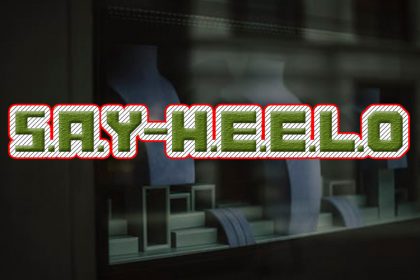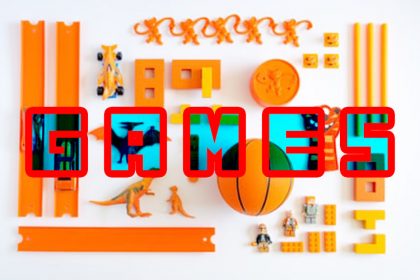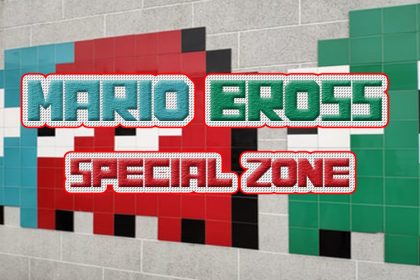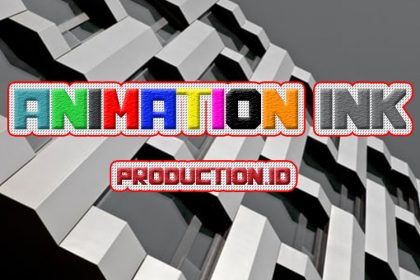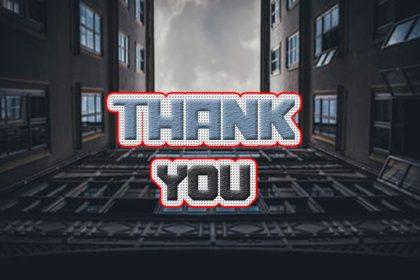
Say Hello Font
SAY HELLO Font is a font that is suitable for the purposes of game design, design of children’s toys and many others. Also suitable for certain occasions.